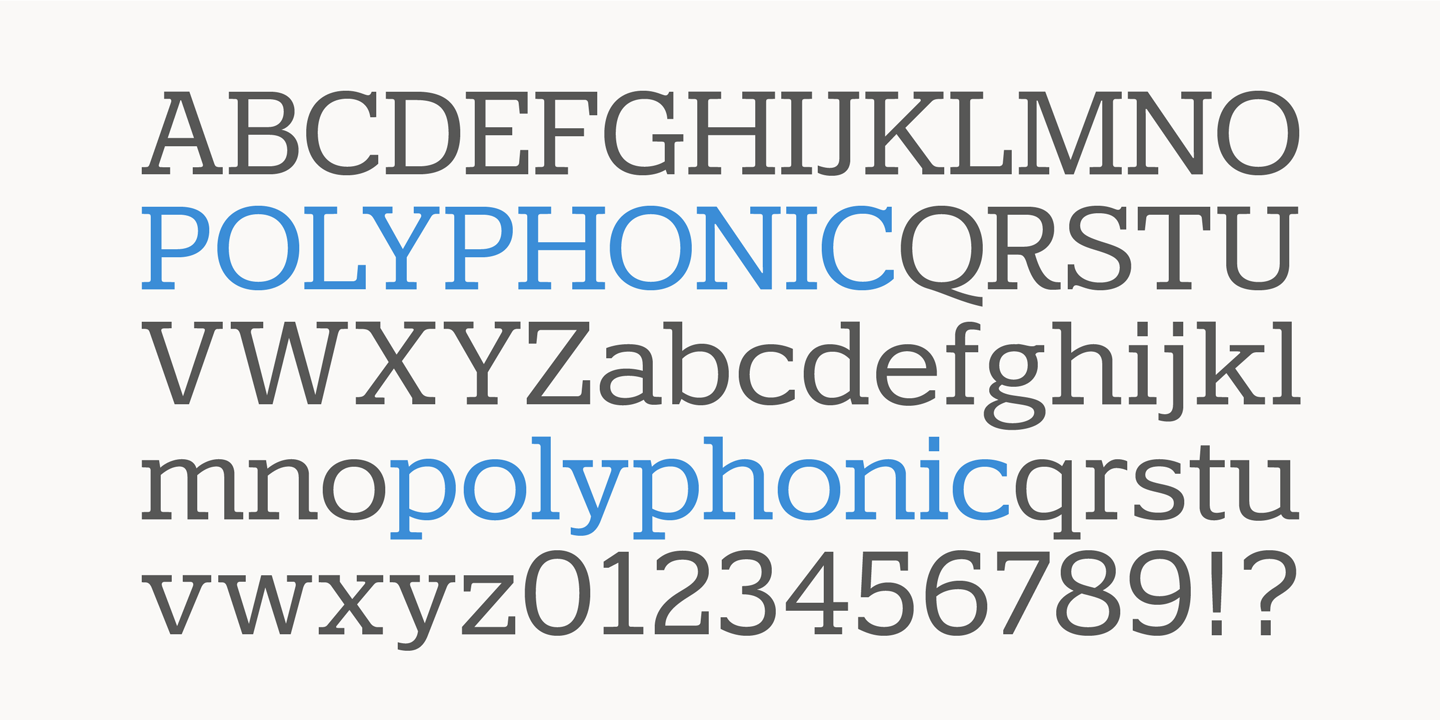
Please note, you must purchase this font for commercial use. You can download Polyphonic Font Free Download for testing purposes and explore its modern, dynamic design. Polyphonic Font is perfect for branding, headlines, posters, and any project that requires a bold, expressive look.
With its clean lines, geometric structure, and stylish details, Polyphonic Font adds a sense of energy and modernity to your designs. It's ideal for projects that need to make a statement, making it great for creative marketing materials, logos, and artistic campaigns.
Polyphonic Font Free Download supports multilingual characters, making it versatile for global projects. Its legible design ensures readability across both print and digital formats, making it a great choice for a variety of creative applications.